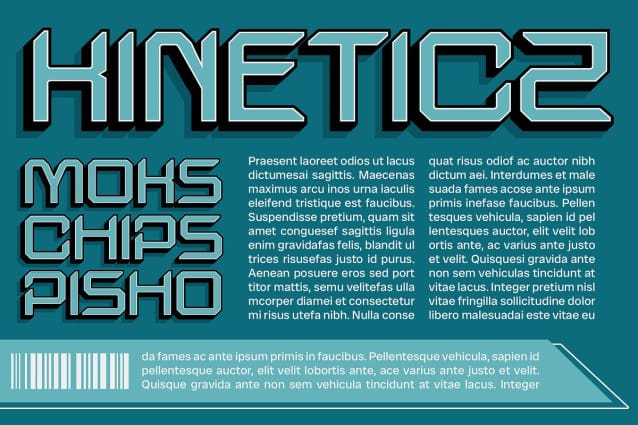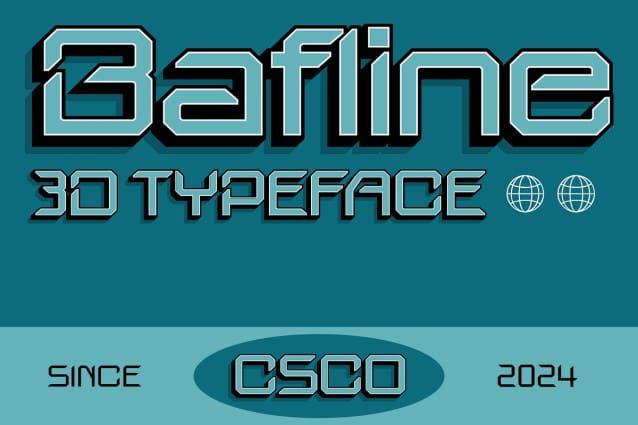
Bafline 3D Font
Bafline 3D Font is a modern display sans-serif font that combines sleek, clean lines with innovative design elements. Its futuristic form gives it a contemporary edge, embodying a sophisticated and avant-garde aesthetic. This makes it an ideal choice for designs that aim to convey a cutting-edge, modern look.
Enhanced with a Dramatic 3D Effect The standout feature of Bafline 3D is its impressive 3D effect. This adds significant depth and texture to the font, creating a dynamic visual impact that makes it truly eye-catching. The illusion of volume and dimensionality ensures that the font grabs attention and stands out in any application.
Blending Innovation with Strong Visual Impact The fusion of modern sans-serif shapes with the dramatic 3D effect results in a font that is both innovative and visually striking. Bafline 3D is perfect for projects that need to highlight technological advancement and contemporary style, making it suitable for high-impact branding, posters, and promotional materials.
Ideal for Technology and Forward-Thinking Designs Whether you’re designing a logo, creating a poster, or developing promotional materials, Bafline 3D delivers a powerful and sophisticated look. Its futuristic design and bold 3D elements make it ideal for projects that aim to emphasize technological progress and a modern presence.